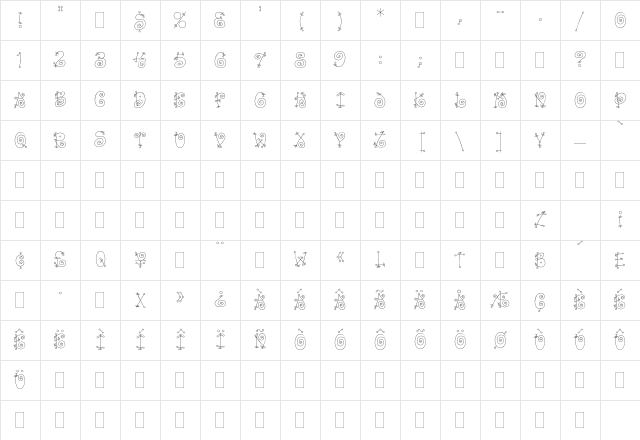
Bang Plain
Design Context for Bang
Bang is a composed and adaptable typeface that performs quietly and consistently across a wide range of design contexts.